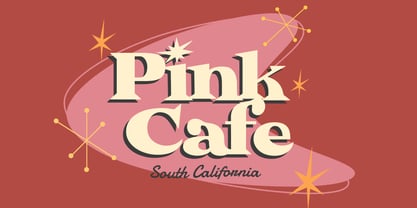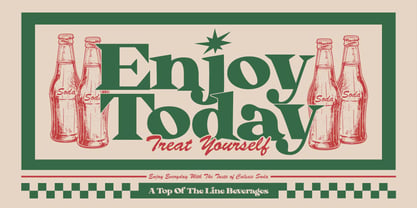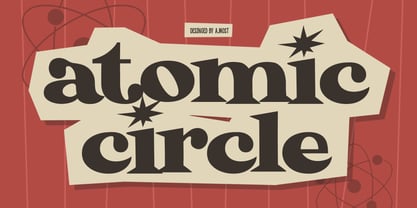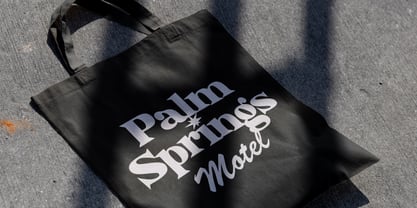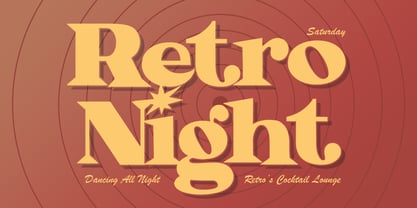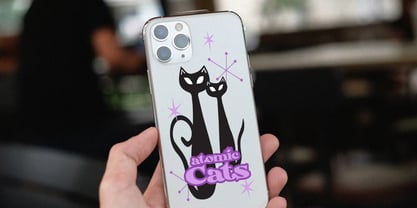
Atomic Circle
The Atomic Circle Font Family was designed by Aldi Hendarto and published by AMost. Atomic Circle contains 1 styles. More about this family
Atomic Circle is a bold mid-century modern serif font inspired by the iconic Atomic Age design movement of the 1950s and 1960s. Featuring strong letterforms, smooth vintage curves, and timeless retro character, this typeface captures the optimism and elegance of classic American design. Its distinctive style makes it perfect for creating eye-catching headlines and nostalgic branding with a modern twist. Atomic Circle adds an authentic retro aesthetic that stands out across both print and digital projects, making it ideal for editorial layouts, branding, and promotional materials.